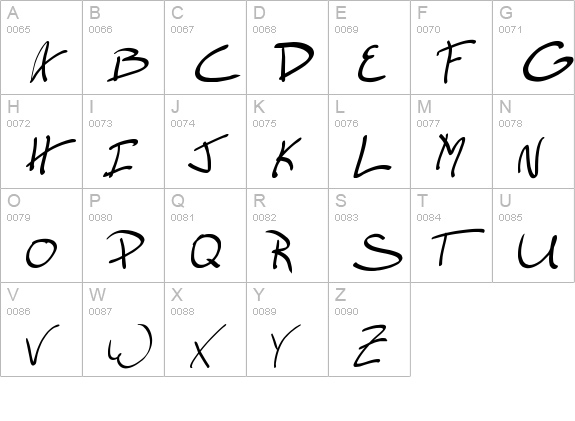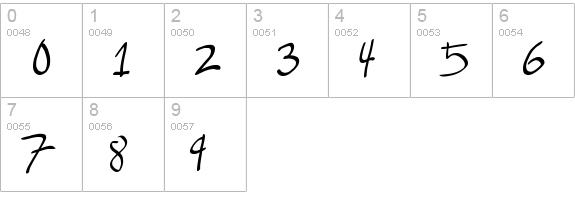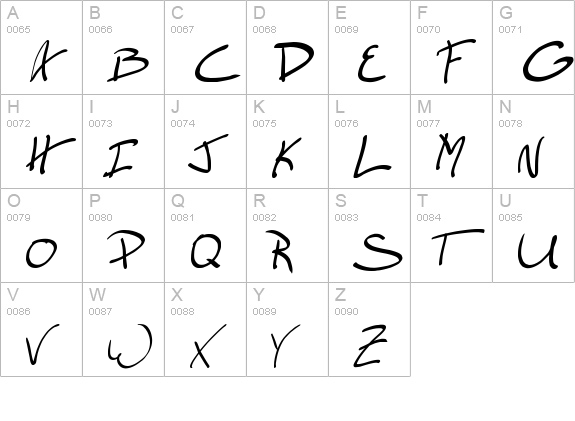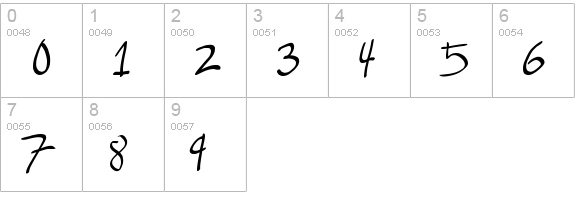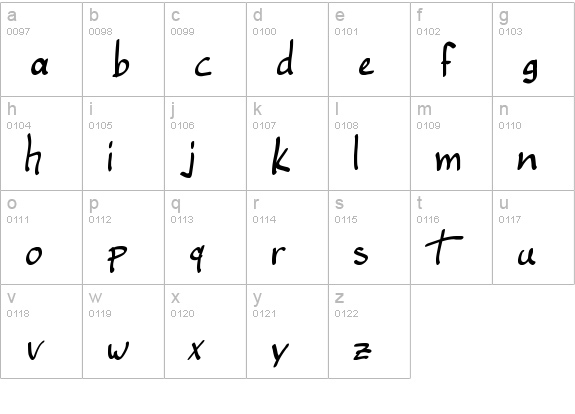
Ellianarelle's Path Font Details
Ellianarelle's Path font is a beautifully crafted typeface that exudes elegance and sophistication. With its intricate details and graceful curves, this font is perfect for adding a touch of refinement to any project. The flowing lines of Ellianarelle's Path font give it a unique and artistic look that is sure to captivate the eye. What makes Ellianarelle's Path font even more special is that it is available for free download at FontsMarket.com. This means that you can easily access this stunning font and incorporate it into your designs without any cost. Whether you are working on a branding project, a website design, or any other creative endeavor, Ellianarelle's Path font is sure to elevate your work and make a lasting impression. Download this exquisite font today and unleash your creativity with Ellianarelle's Path.